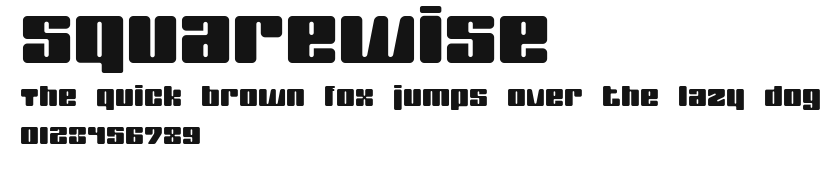
• Font Name: SquareWise
• Full Font Name: SquareWise
• Manufacturer: LeFly
• Description: Based on samples from an 1980s foundry catalog.
About SquareWise.ttf
SquareWise.ttf is a modern, elegant sans-serif font designed for ultimate readability and visual harmony. Perfect for branding, headlines, web design, and print materials.